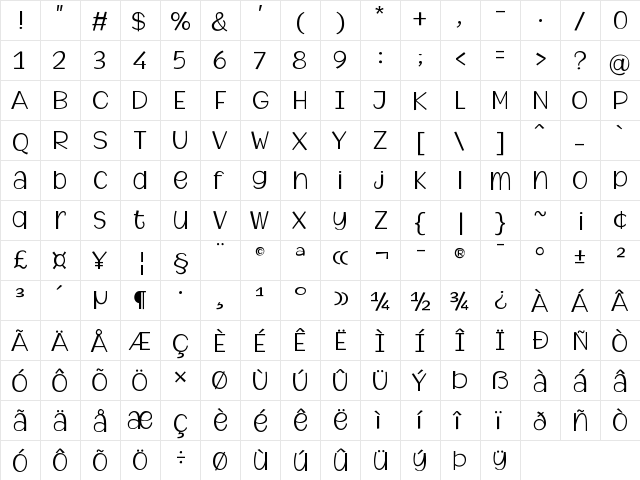
Watermelon Family Light
| Foundry | Darwin Huayan Harahap |
| Designer | Darwinoo |
Design Context for Watermelon Family Typeface
Watermelon Family takes a measured approach to typography — its balanced proportions and neutral character make it a reliable workhorse for both digital and print work. Its slender proportions lend an understated elegance to any composition.